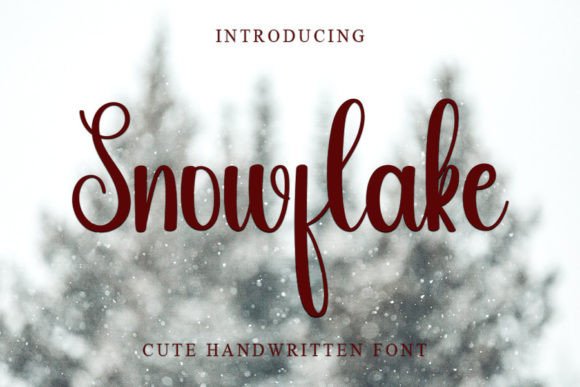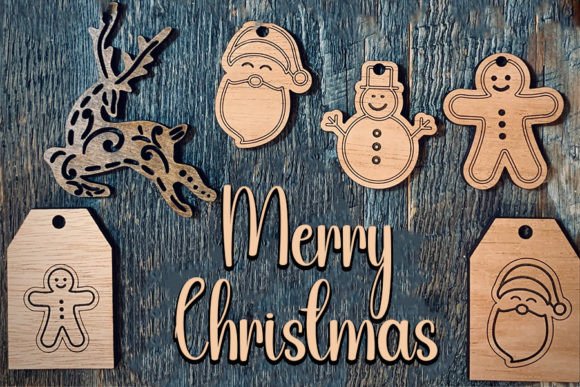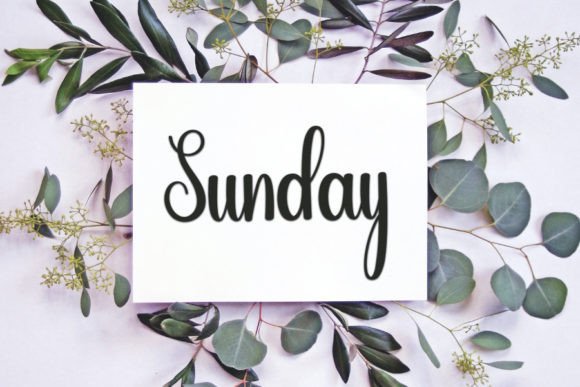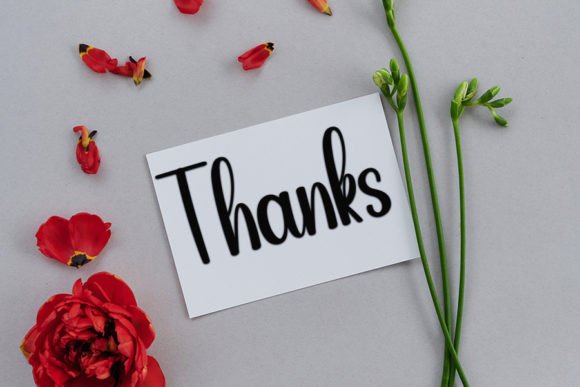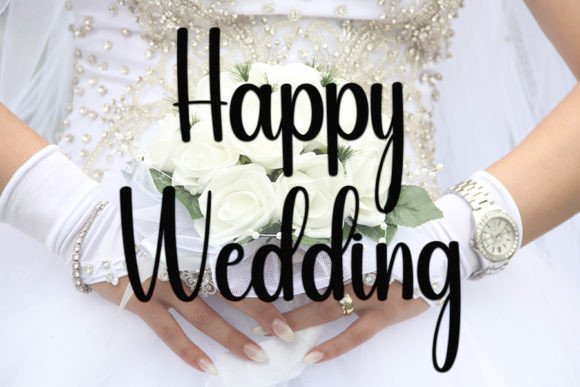
Snowflake Font
About Snowflake Font
Snowflake Font is a neat handwritten script that blends timeless elegance with modern sophistication. With refined strokes and graceful flow, this typeface adds personality and charm to both personal and professional projects. Because of its versatile design, Snowflake Font is perfect for invitations, greeting cards, logos, posters, and branding.
A Handwritten Typeface with Elegance and Style
Handwritten fonts are admired for their ability to bring warmth and individuality, and Snowflake Font enhances this with polished details. Its smooth rhythm and balanced form provide readability while keeping a handcrafted essence. Moreover, its timeless elegance adapts seamlessly to classic and contemporary layouts. As a result, this font is a dependable choice for designers seeking style and refinement.
For anyone working with stationery, Snowflake Font is an excellent option. For example, it can transform a wedding invitation into a keepsake filled with sophistication. In addition, it works beautifully for birthday greetings, thank-you notes, and seasonal cards. Because of its elegant strokes, every design feels personal, stylish, and memorable.
A Script Typeface for Logos and Branding
Brands and professionals who want to elevate their identity can rely on Snowflake Font. It brings uniqueness and sophistication to logos, labels, and packaging. Furthermore, on social media, it enhances posts, stories, and promotional graphics with elegance. When paired with minimalist sans serif typefaces, Snowflake Font creates balance between professionalism and creativity.
Another advantage of SnowflakeFont is its adaptability across mediums. In print, it shines on posters, brochures, magazines, and merchandise. Digitally, it elevates websites, blogs, and presentations with a handwritten appeal. Since it maintains clarity across both small and large sizes, this script font is reliable for a wide range of creative projects.